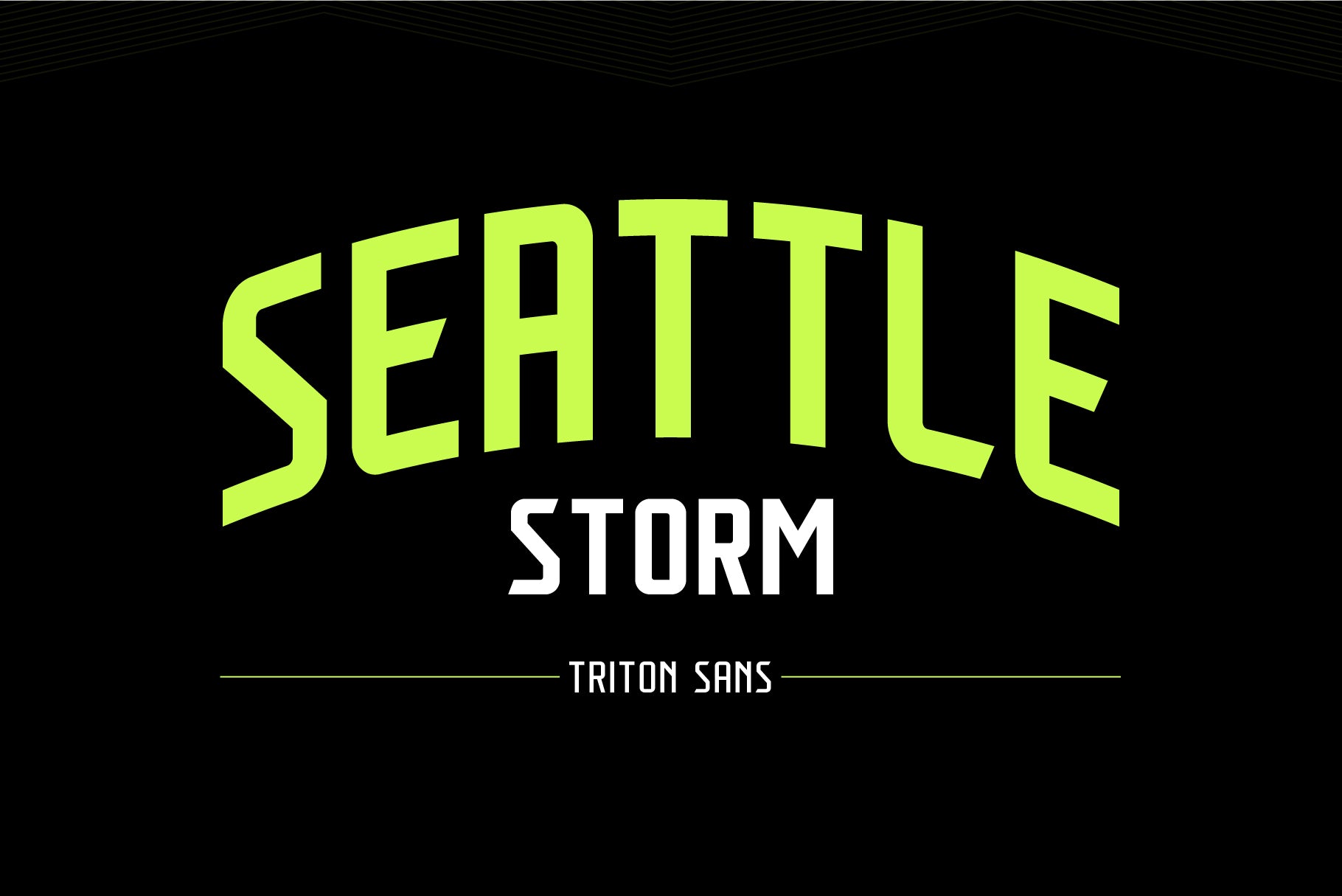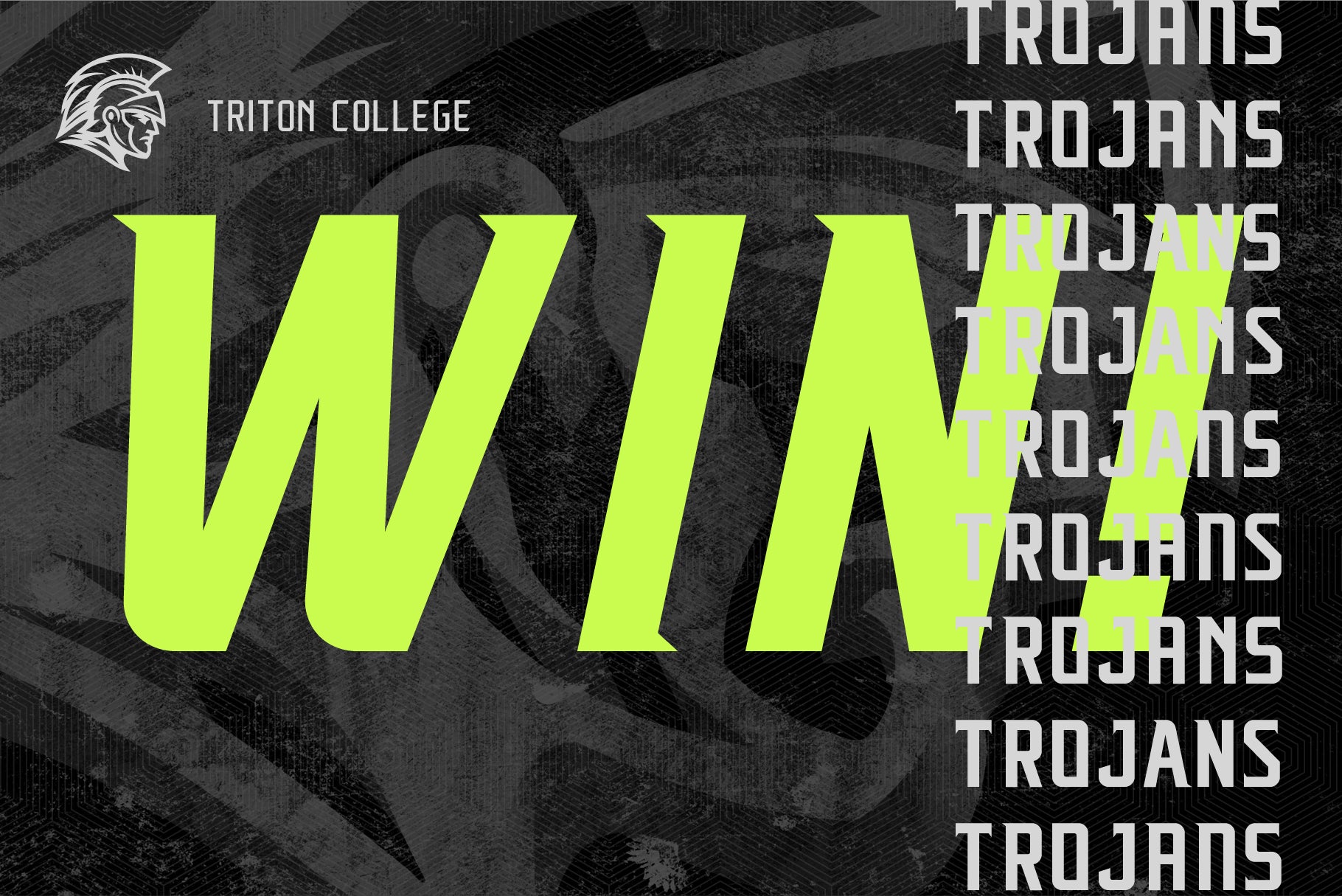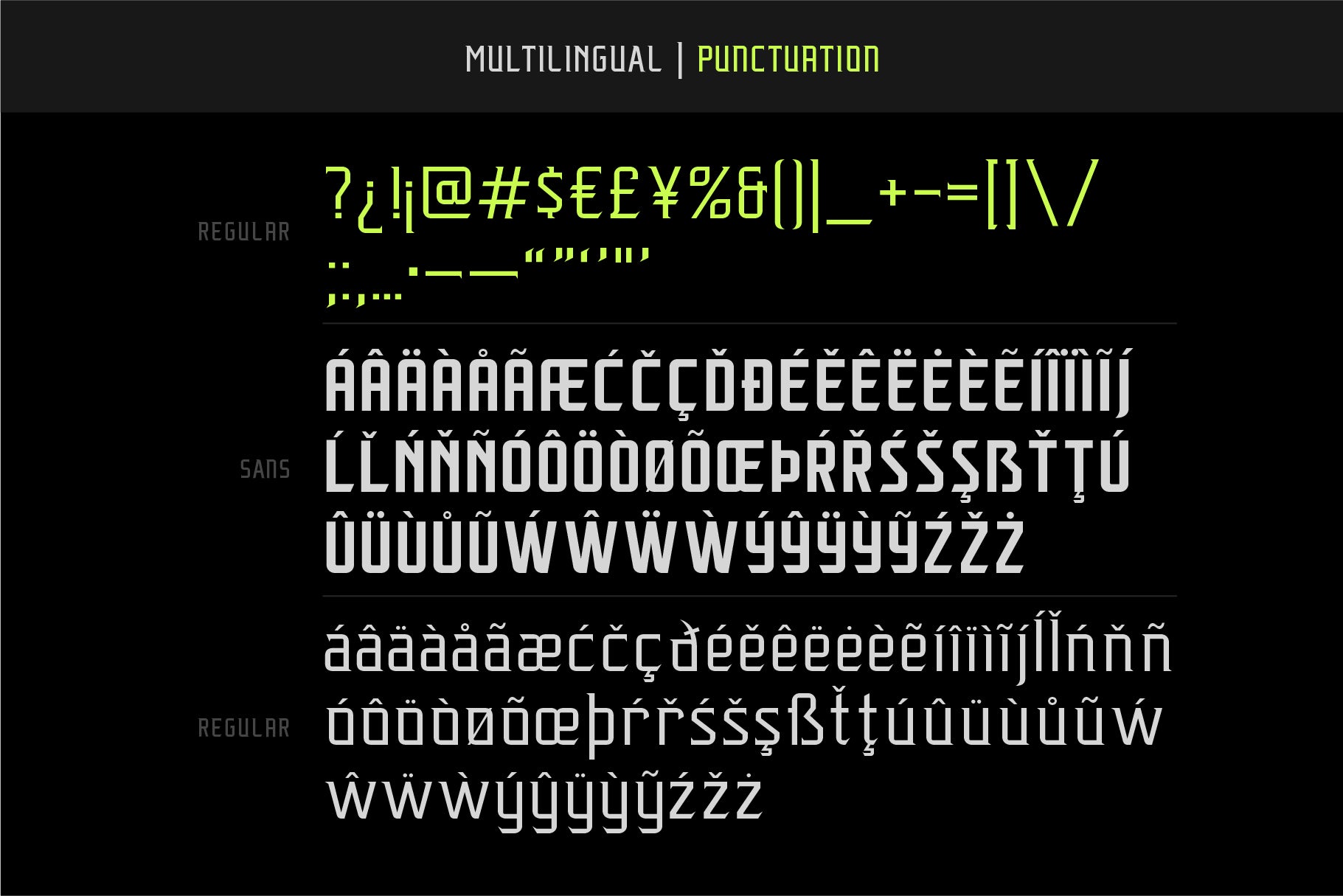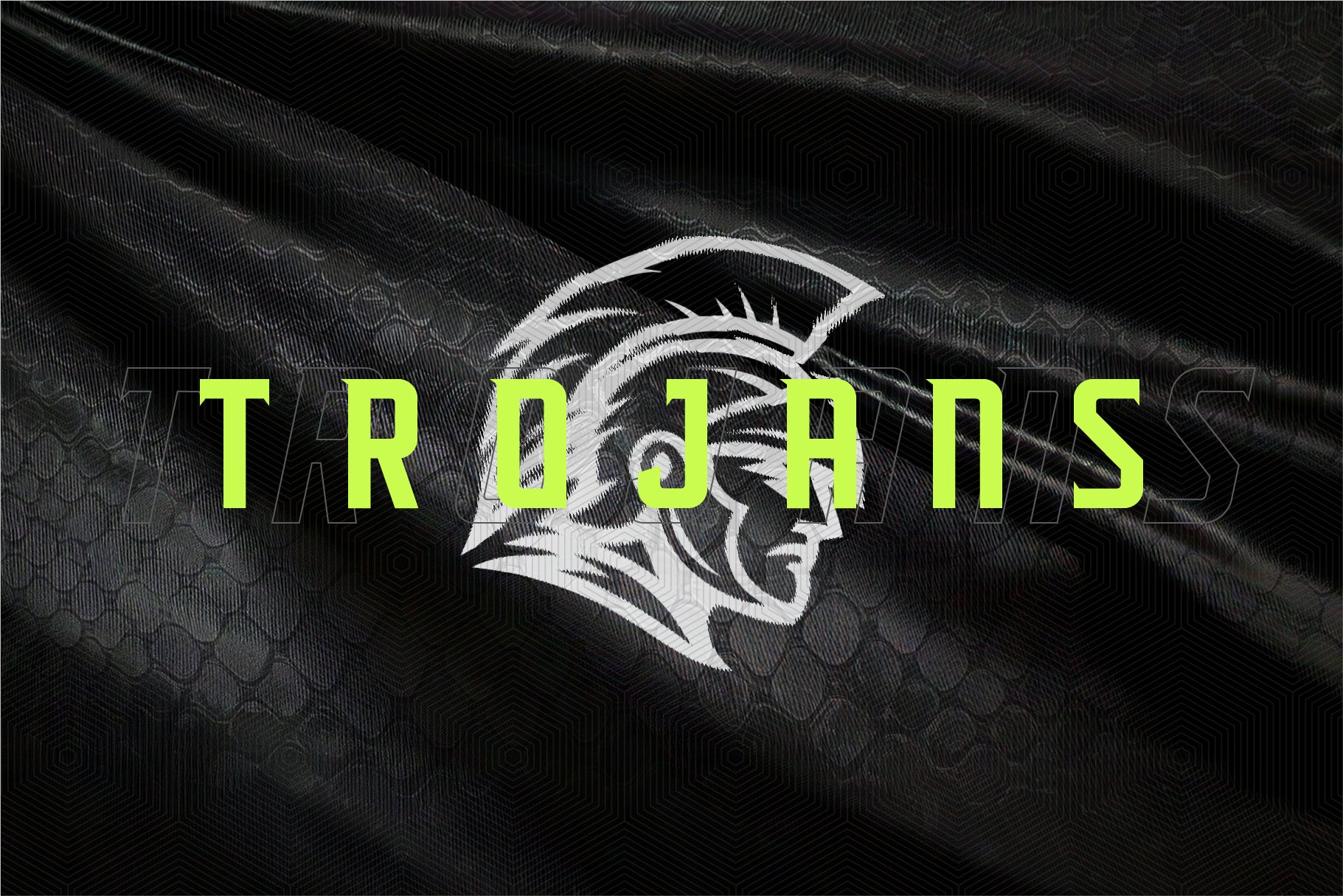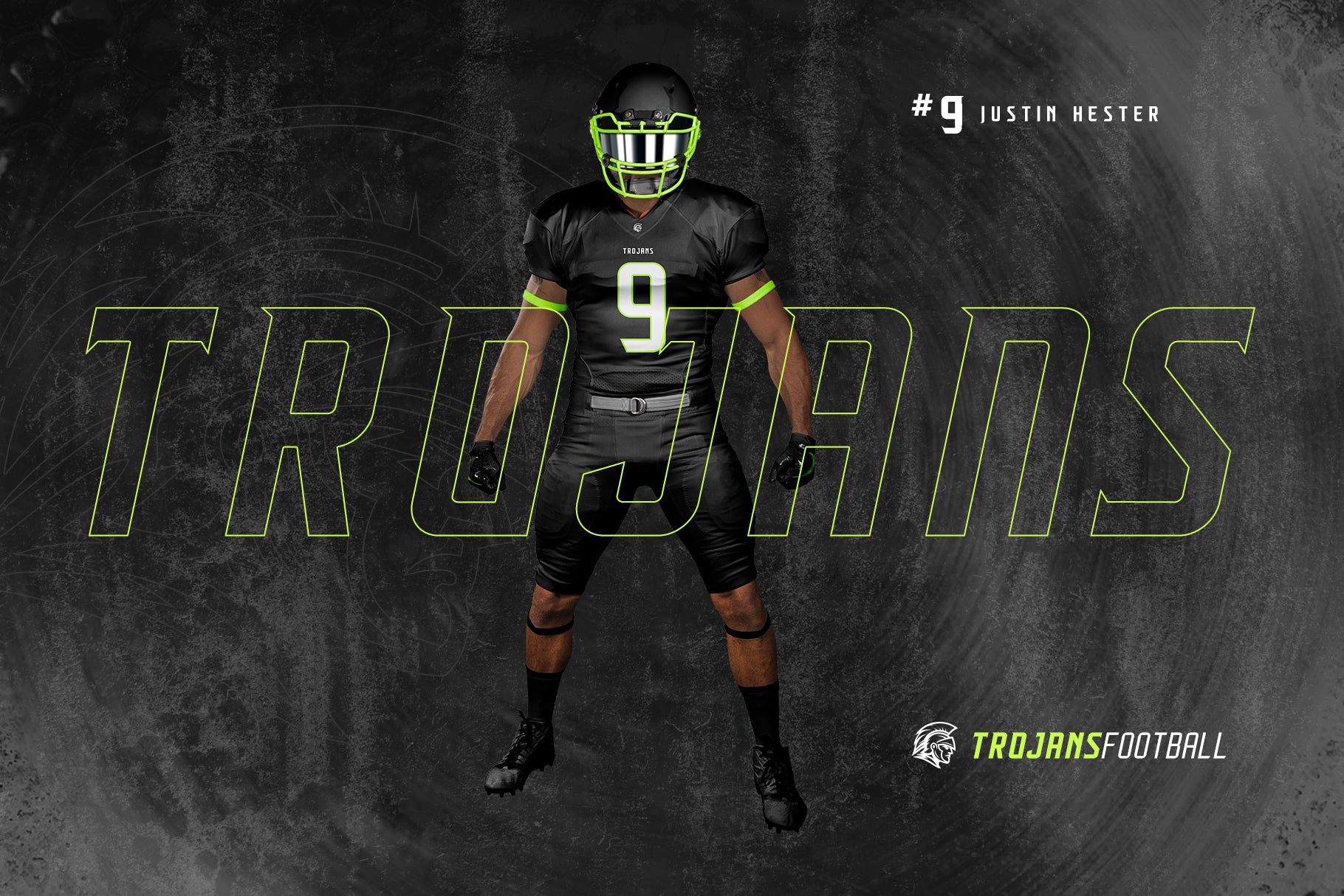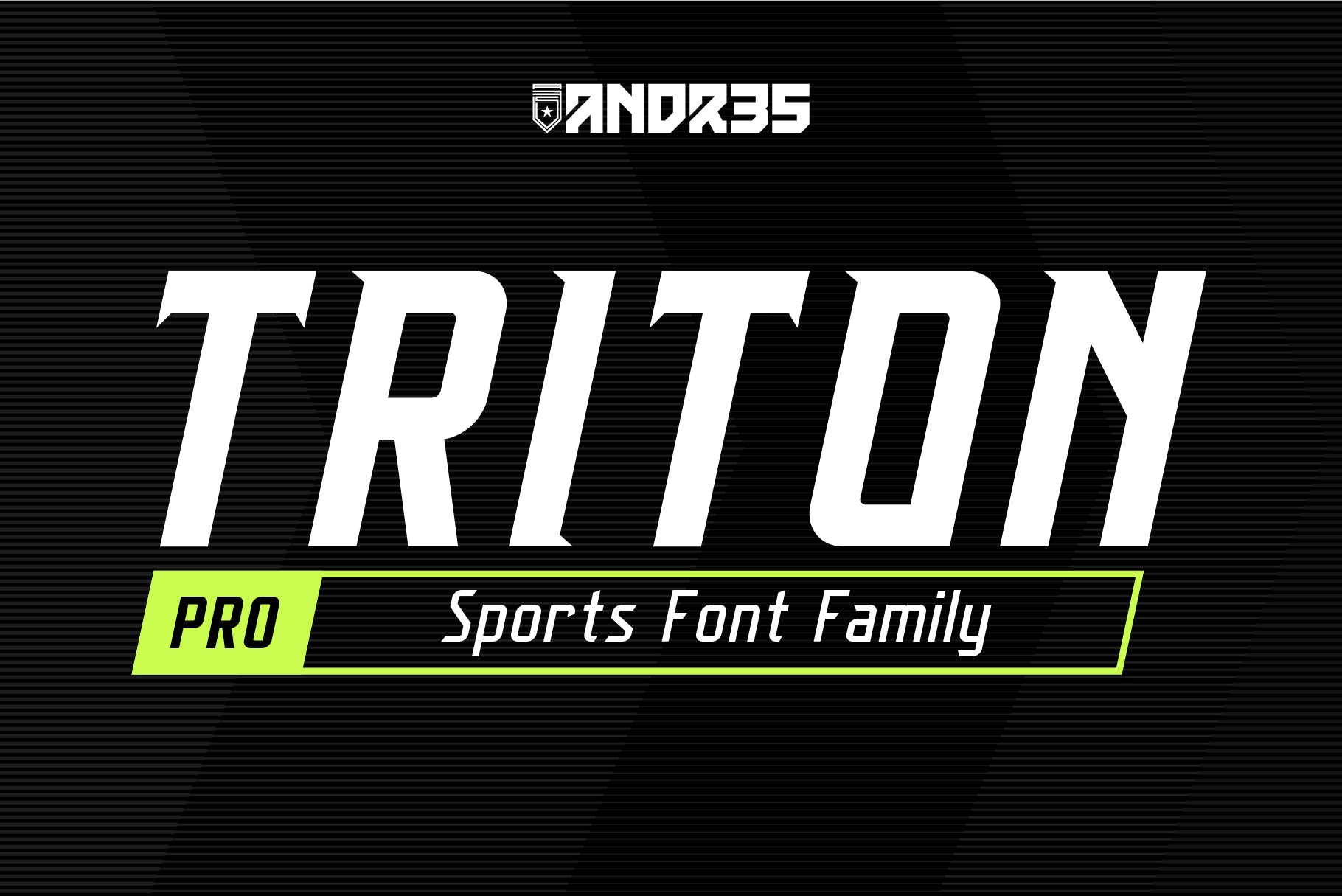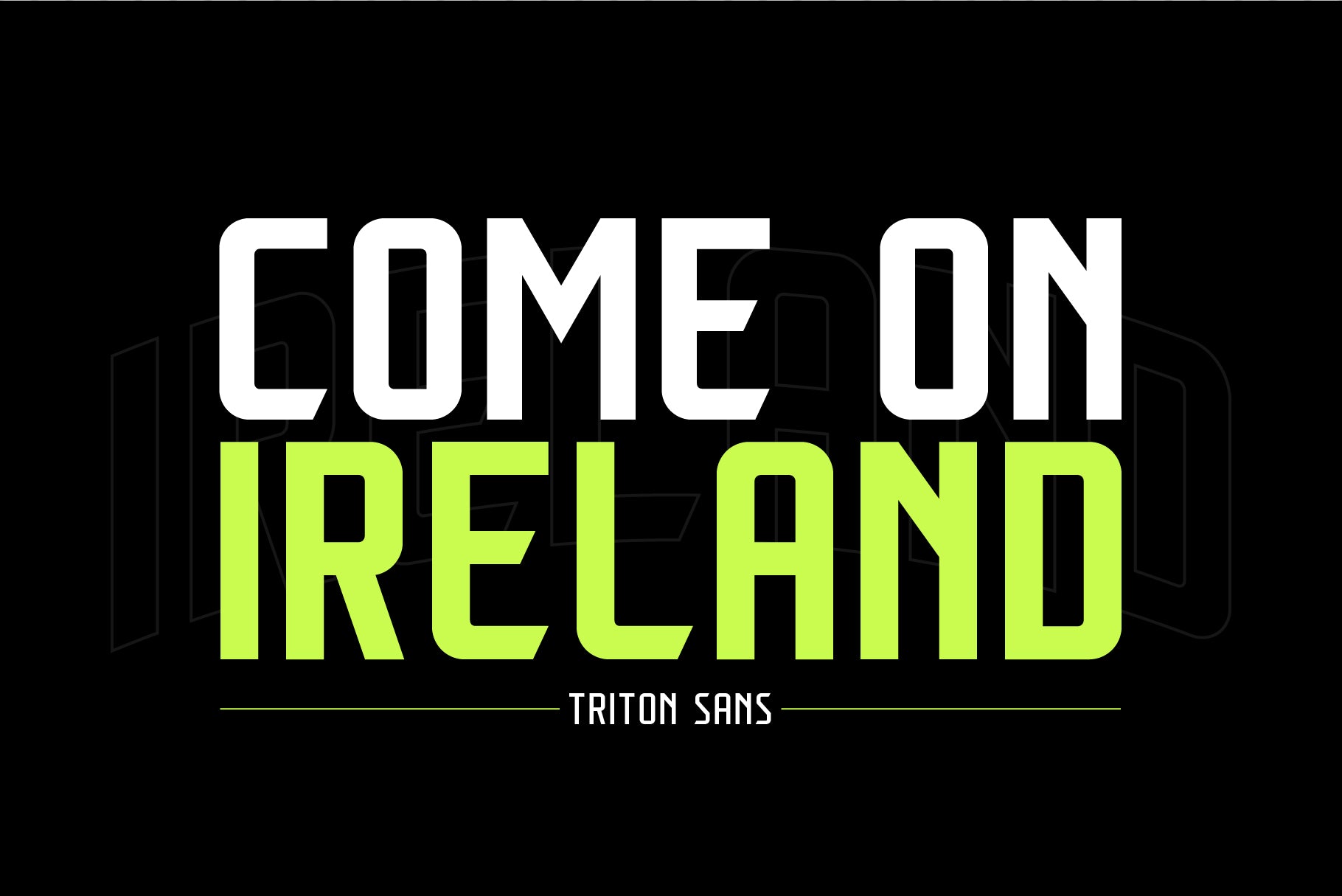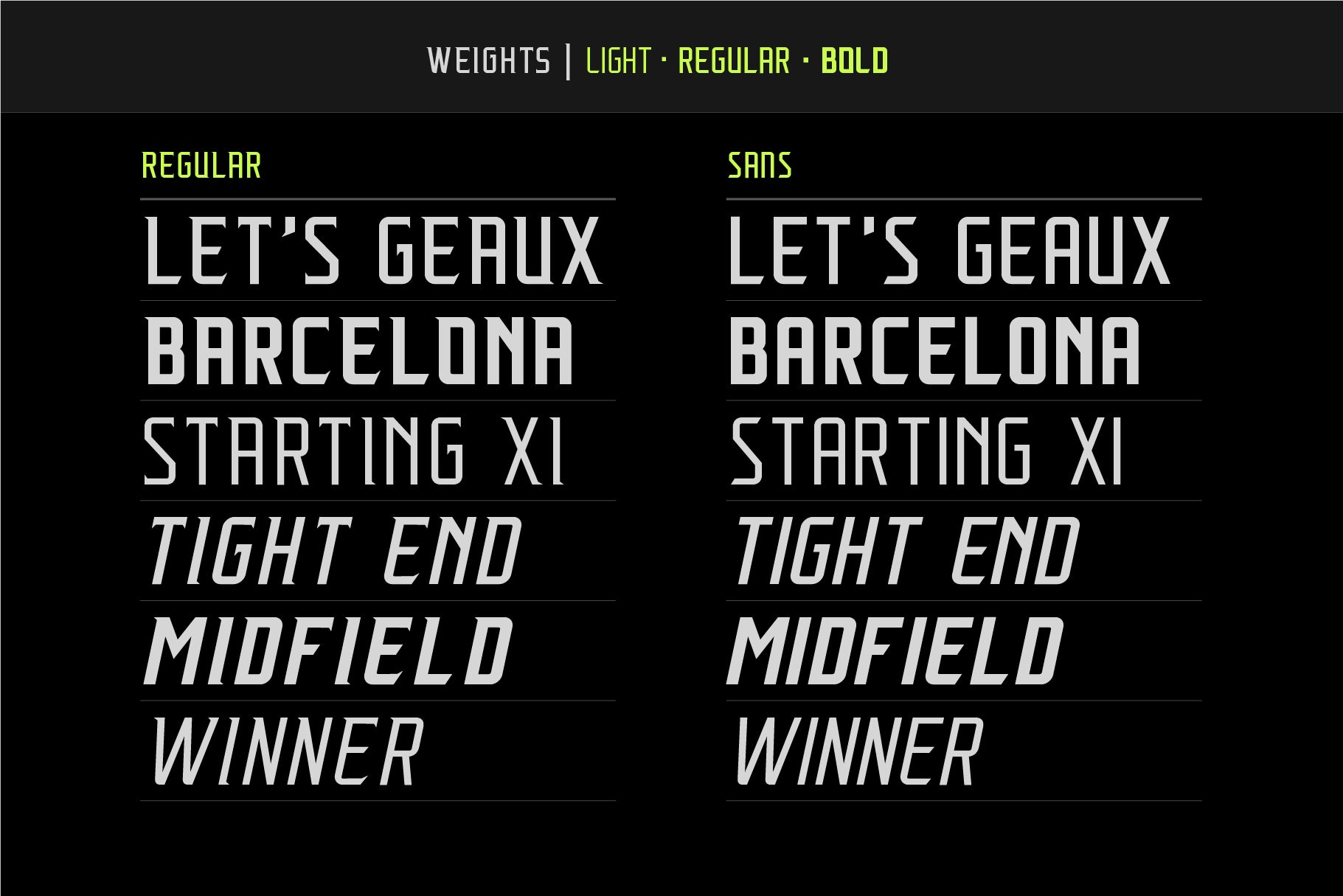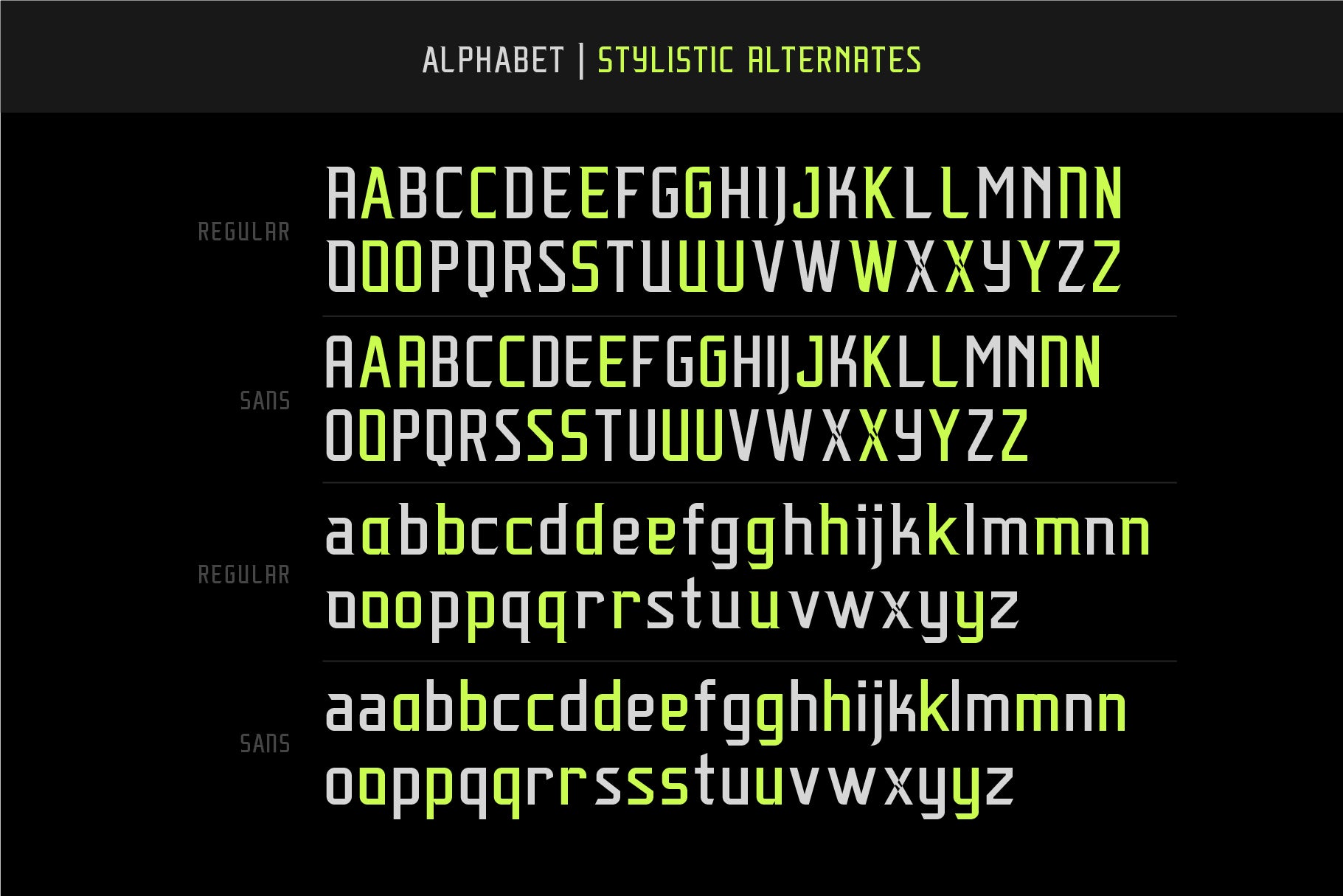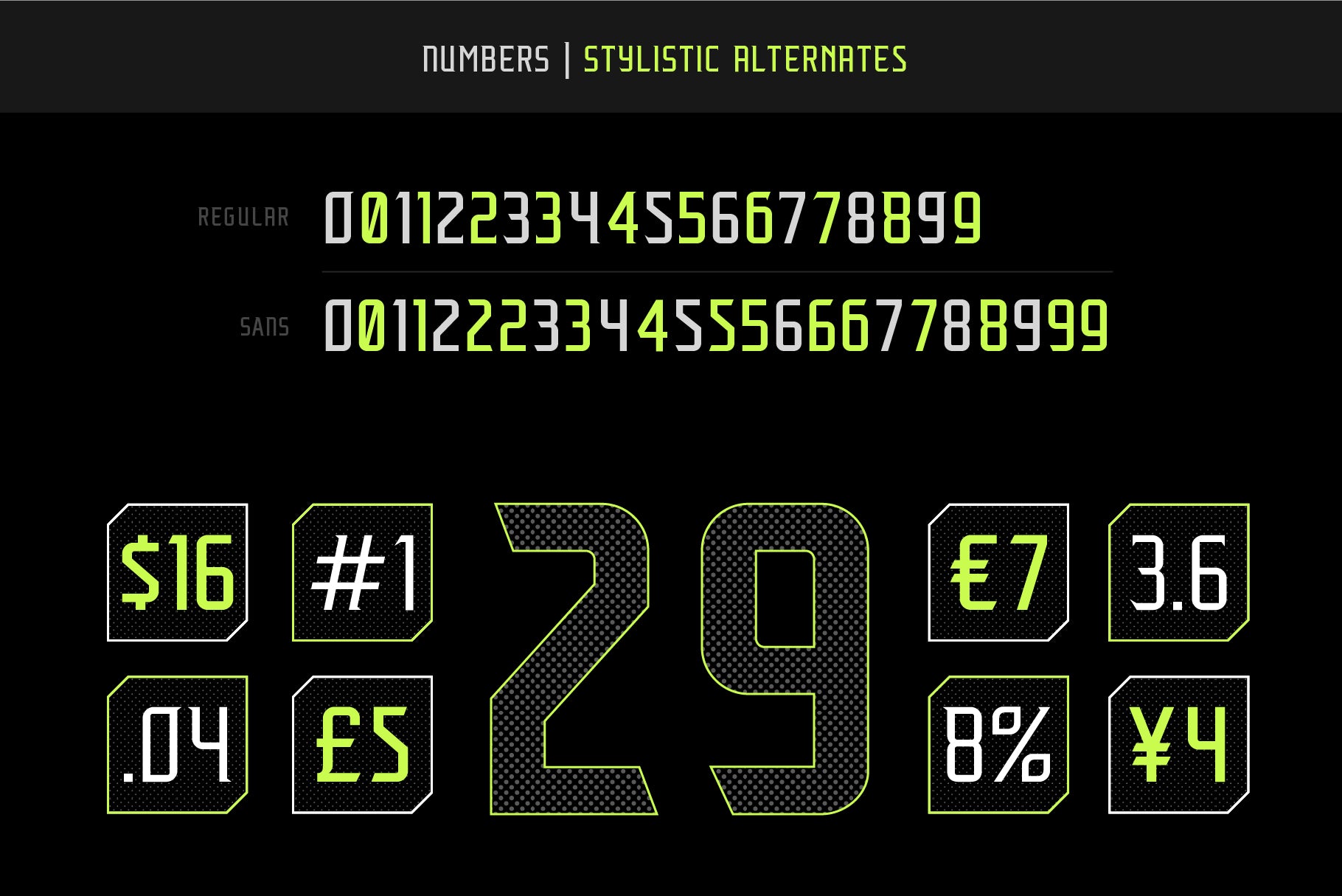
Triton Sports Font Family
Triton Sports Font Family was created with sports designers and their usages of type in mind. Triton is perfect for sports, apparel, promo and large headline uses. It's versatility allows you to brand each sport and is built with jersey placement in mind, so you could utilize Triton on each sports' jersey to really tie things together!
Inspiration came from sports logo design and Nike's recent NCAA/NFL type systems. With added punctuation, it's more than just your basic A-Z/0-9, which means you can use it for more pieces, such as social media, ads, game programs, etc.
New Features Include
- 12 fonts (6 Regular and 6 Italics)
- Variable version
- Upper & Lowercase
- Alternate Glyphs (Mix things up)
- Expanded Glyphs (just over 300 glyphs)
- Basic Latin Diacritics (In case you need to throw down some Spanish/French, etc.)